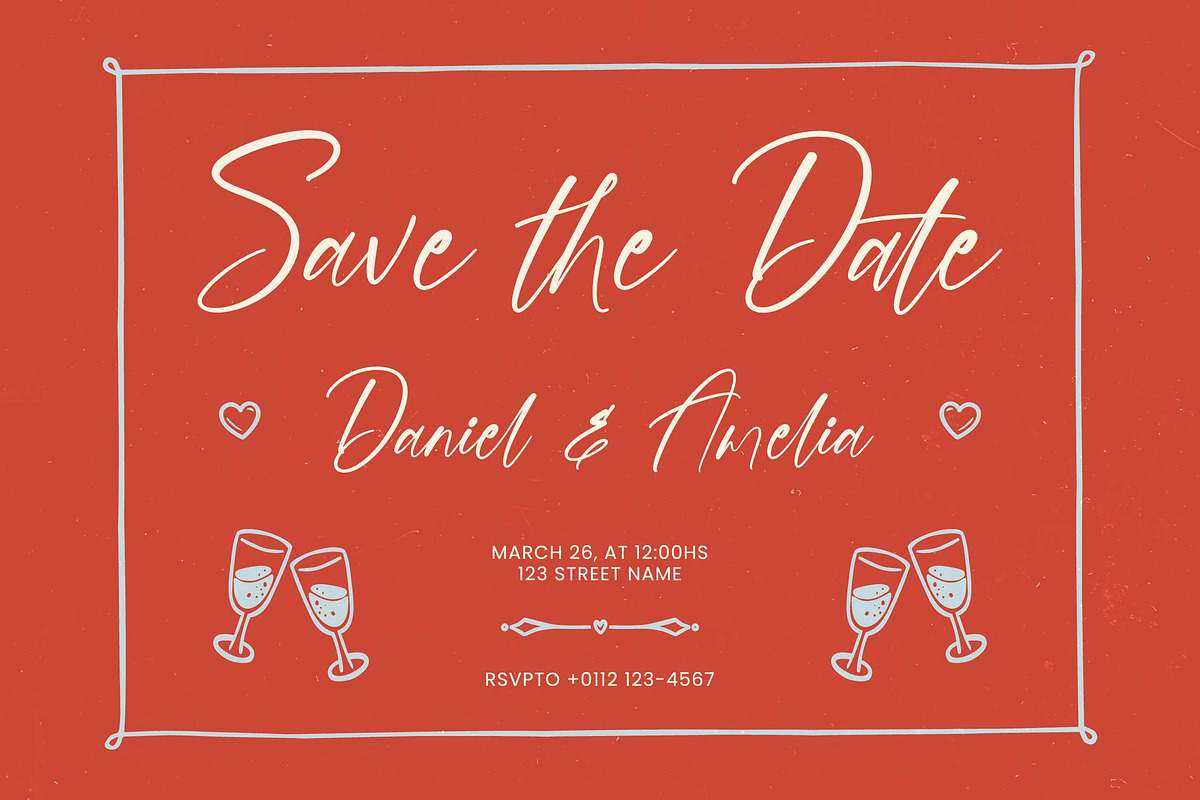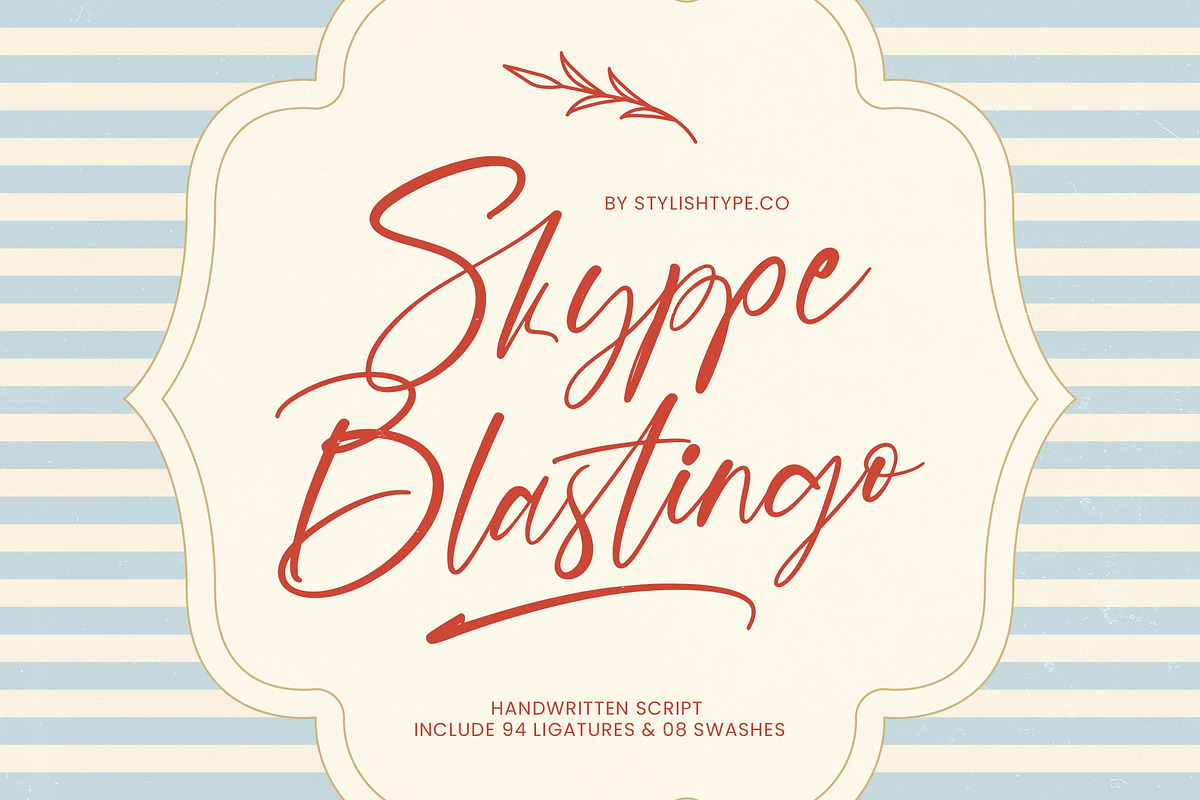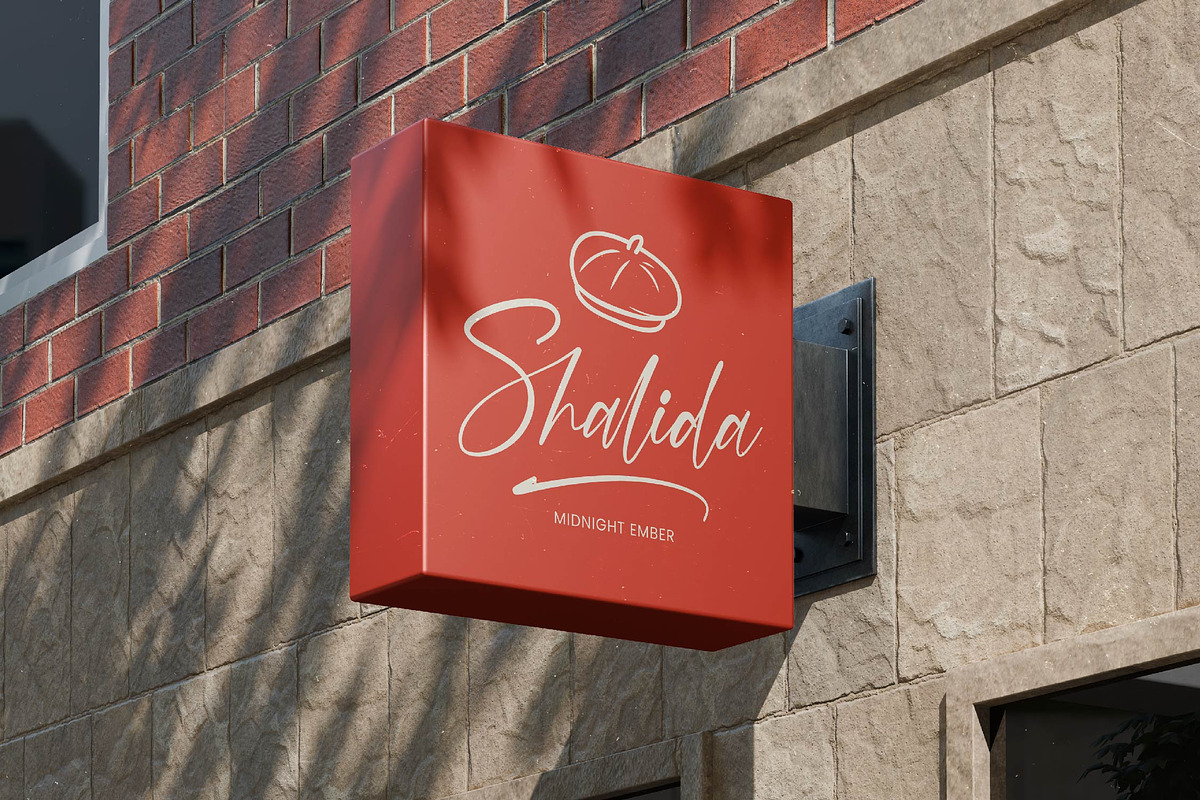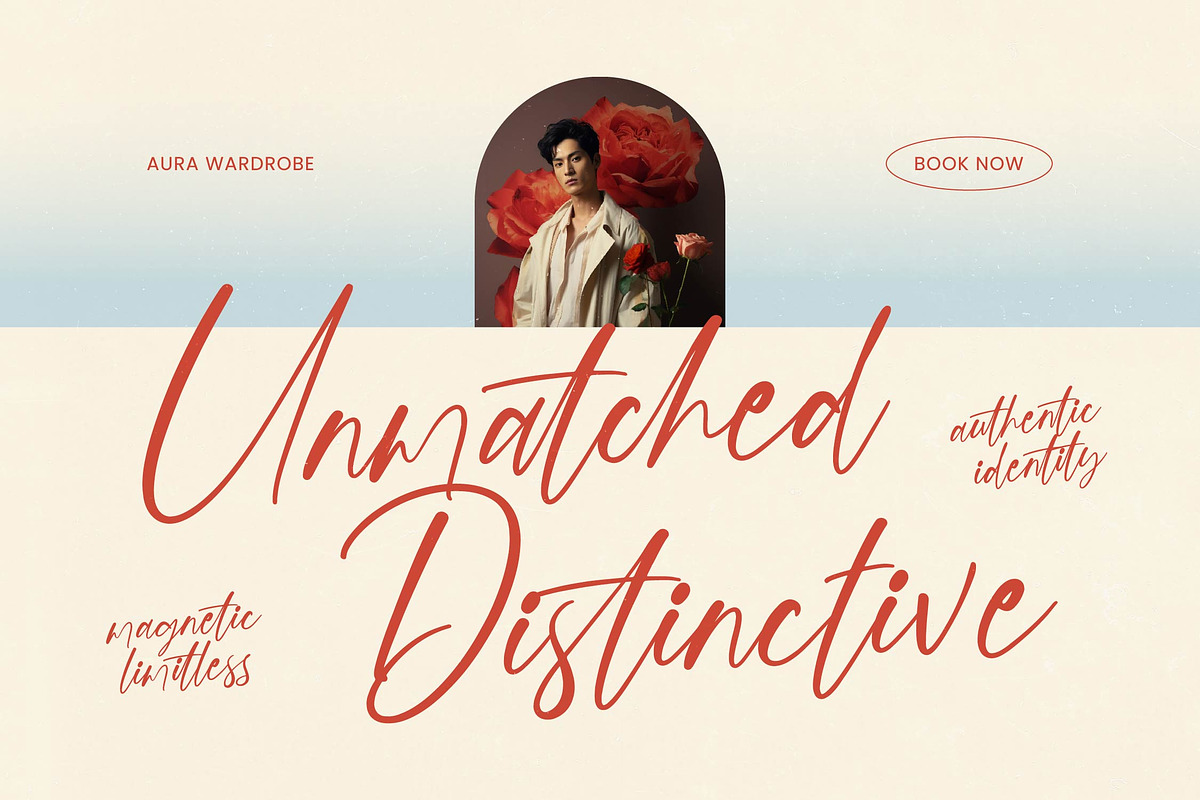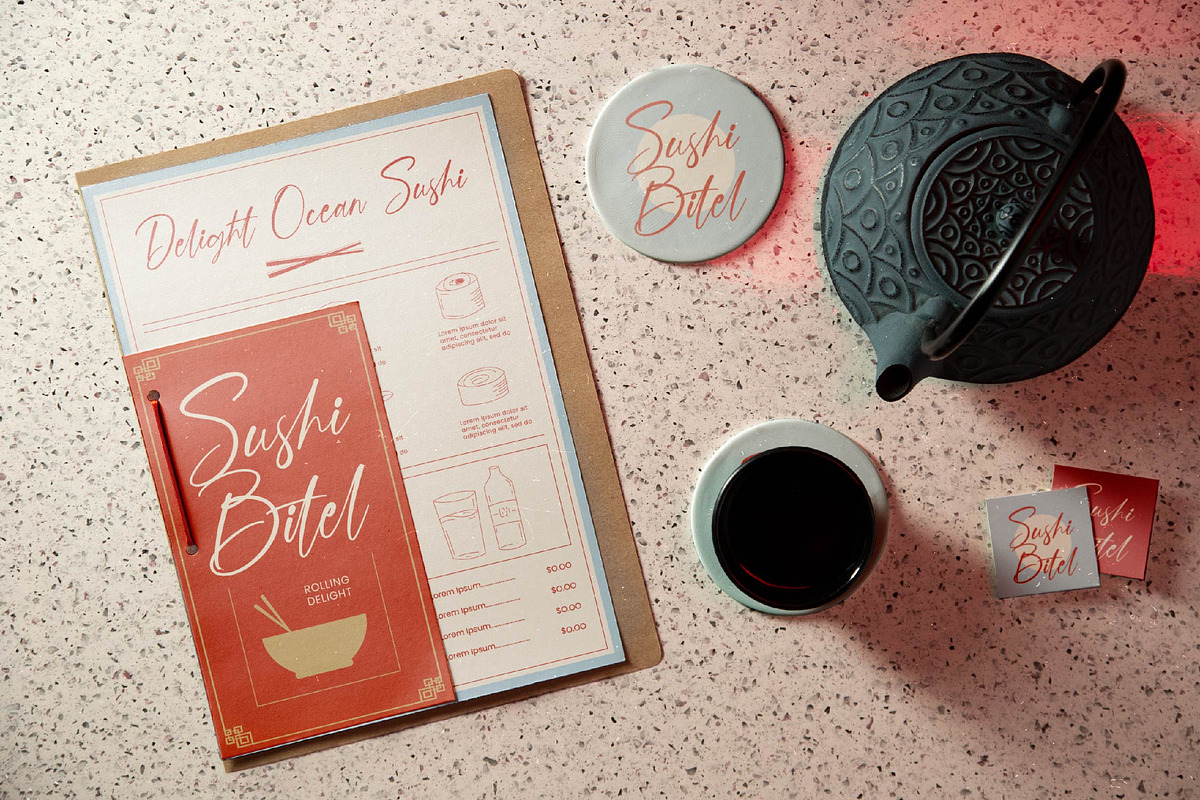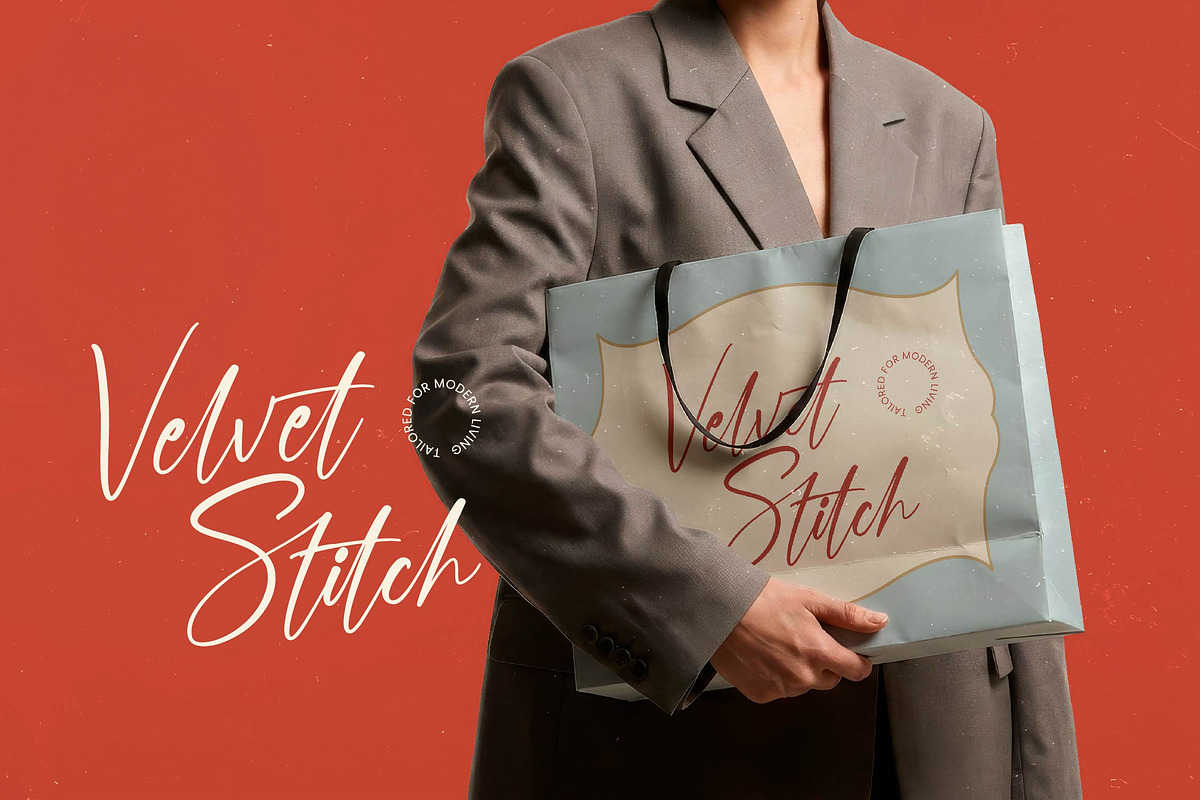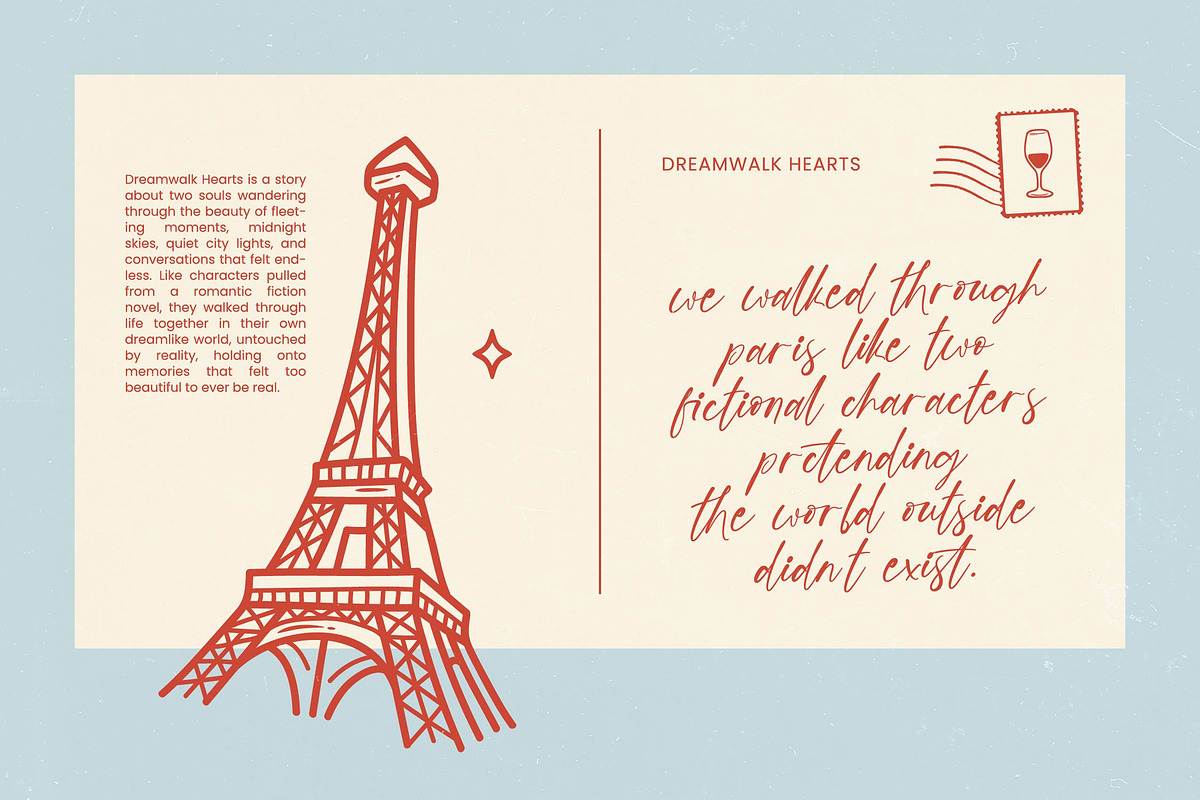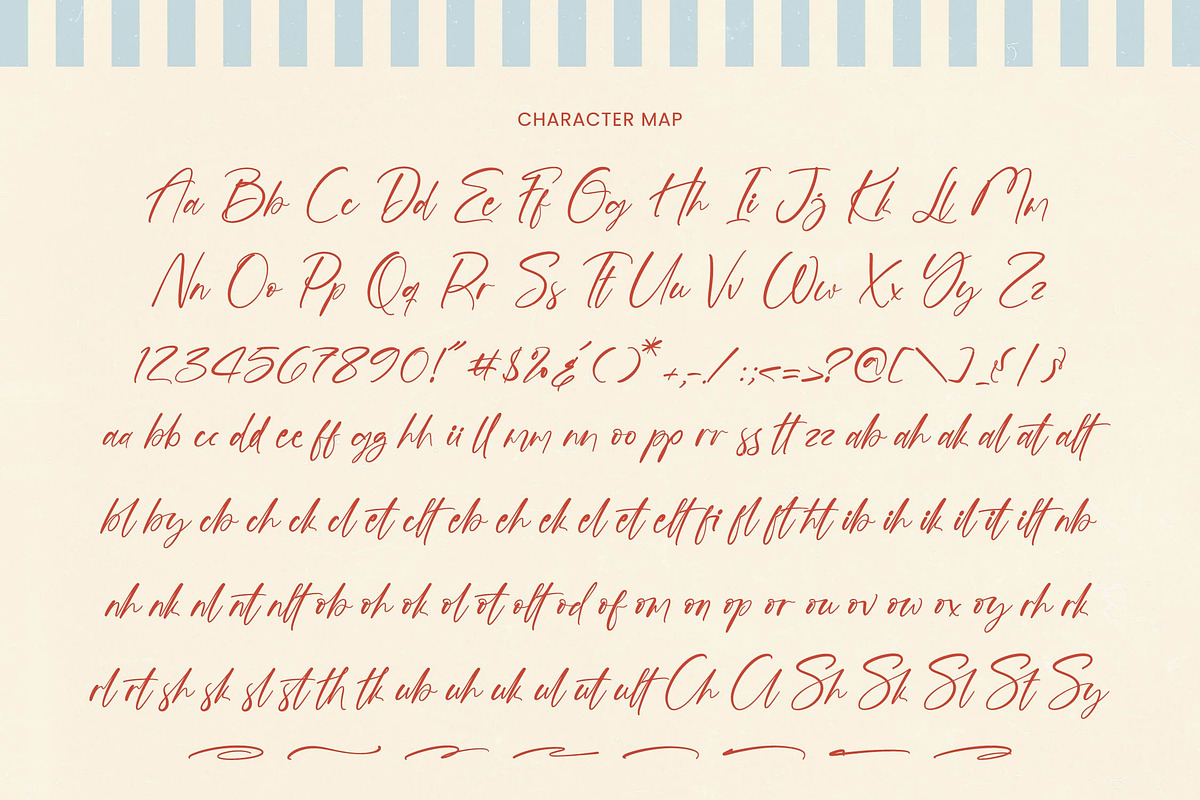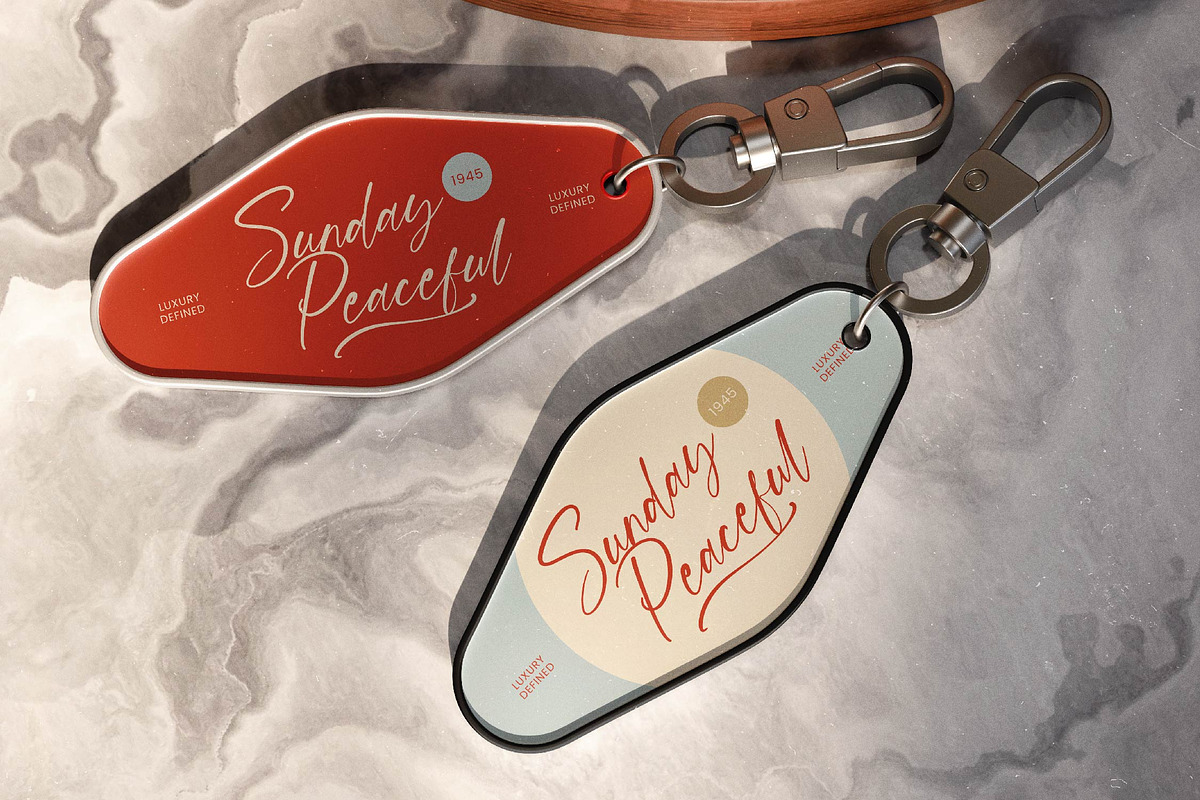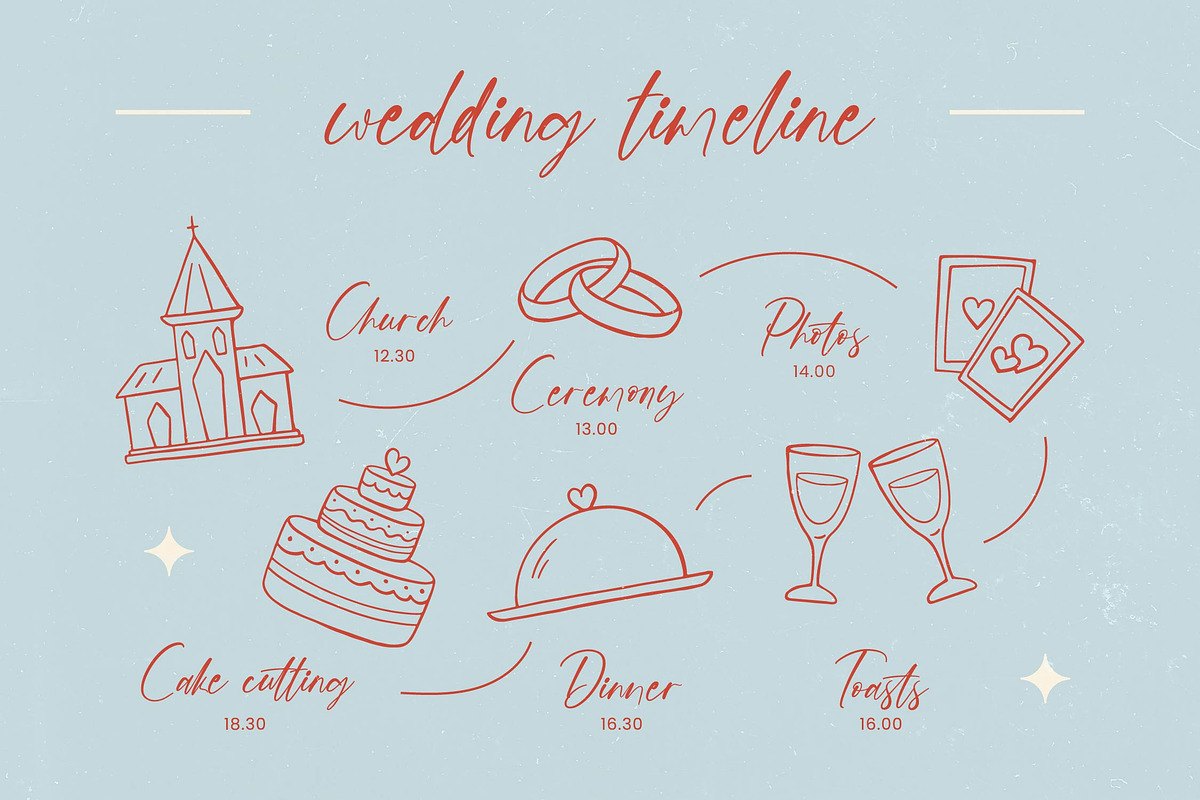
Skyppe Blastingo Handwritten Script
Skyppe Blastingo - Handwritten Script , Elevate your creative vision with a typeface that embodies raw elegance and fluid motion. Skyppe Blastingo - Handwritten Script is a premium typographic choice designed to bring an authentic, human touch to digital and print media. Its rhythmic flow and natural energy create a striking visual impact, making it the ultimate tool for designers seeking a balance between contemporary flair and timeless sophistication.
Experience unparalleled creative freedom through an extensive collection of professional features. This font is meticulously crafted to ensure every word feels bespoke, featuring a robust set of 94 custom ligatures and 08 decorative swashes. By integrating these dynamic elements, Skyppe Blastingo - Handwritten Script mimics the nuances of genuine penmanship, providing a hand-lettered aesthetic that captures attention and enhances brand personality.
Expand your brand’s reach with a typeface engineered for the modern, interconnected world. With its extensive multilingual support, Skyppe Blastingo - Handwritten Script adapts seamlessly across global markets, making it incredibly versatile for international projects. This global accessibility ensures that your message remains consistent and impactful, whether you are targeting local audiences or launching a large-scale international campaign.
Transform ordinary layouts into high-end experiences with a font perfect for elite design demands. Skyppe Blastingo - Handwritten Script is the ideal solution for luxury branding, high-end packaging design, and sophisticated editorial layouts. It is perfect for wedding invitations, social media graphics, and logo development where a premium signature style is required. By choosing Skyppe Blastingo - Handwritten Script, you invest in a versatile design asset that guarantees a professional and memorable finish.